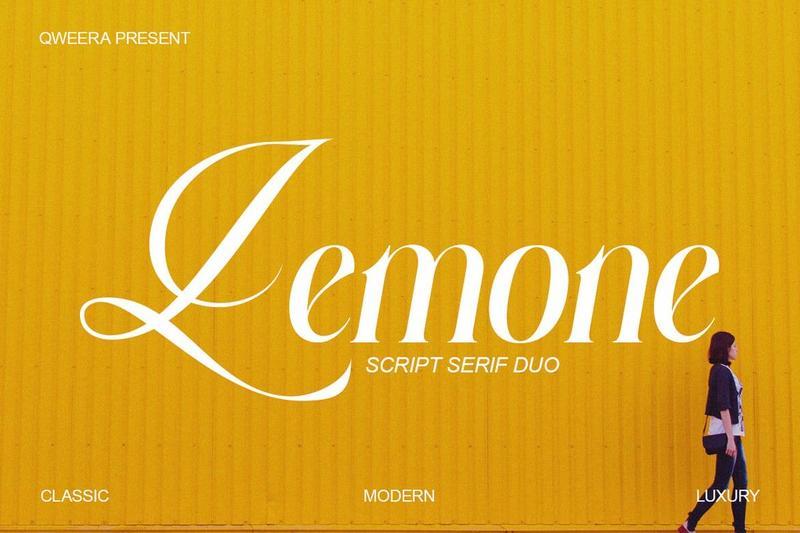
Modern Elegant Stylish Branding – Lemone GTZD9ML
**Lemone** is a script serif duo typeface designed to bring classic elegance, modern luxury, and stylish personality into creative projects. Featuring graceful curves, refined letterforms, expressive alternates, and beautiful ligatures, this font creates a polished and memorable typographic presence.
Lemone blends classic script beauty with modern serif refinement, making it an excellent choice for designers seeking a stylish font with warmth, elegance, and high-end branding appeal.
**Features**
– Uppercase & lowercase
– Regular & Italic
– Alternates & ligatures
– Multilingual support
– Professional kerning